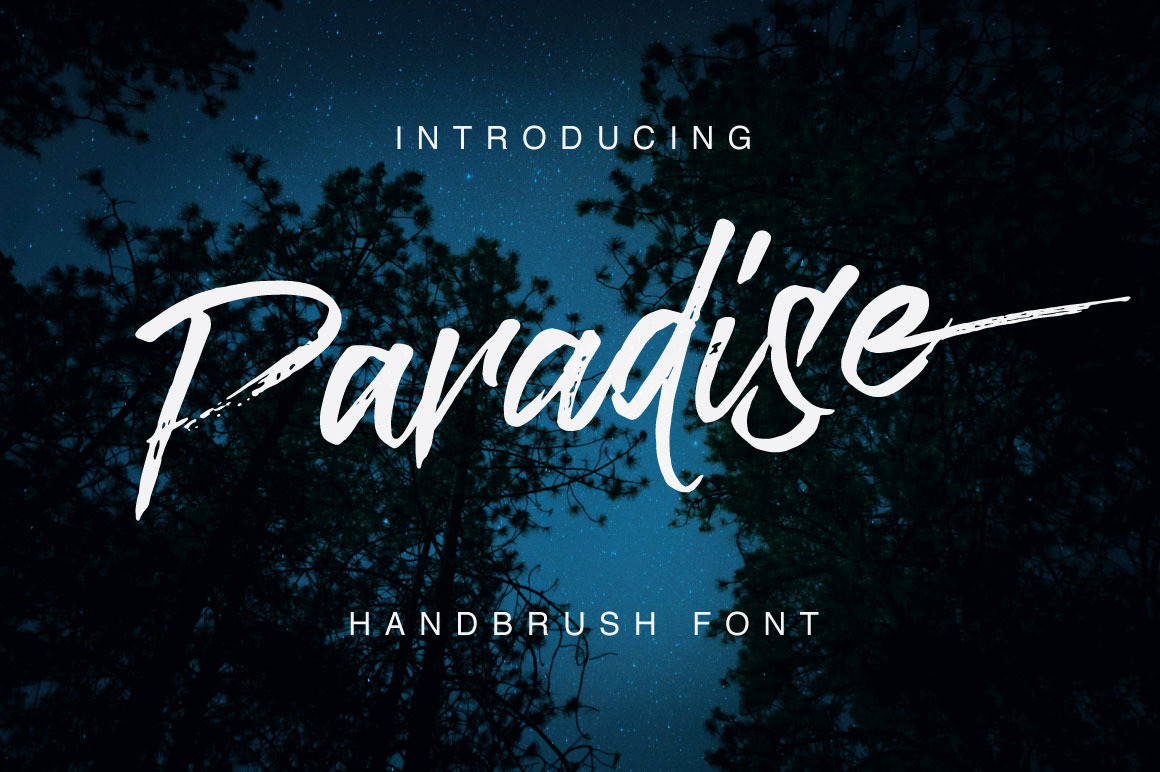
Paradise Typeface
Paradise Typeface is perfect for tropical resort branding, vacation rental materials, beach club signage, luxury travel agencies, exotic destination marketing, tropical product packaging, island-themed restaurants, summer festival posters, cruise line communications, wellness retreat materials, paradise-inspired spas, and dreamy lifestyle brands.
What makes Paradise Typeface exciting is its blissful elegance that captures the serene beauty and luxurious escape of tropical paradise through flowing letterforms that evoke crystal-clear waters and endless summer days. This enchanting typeface embodies the essence of ultimate relaxation and exotic luxury, combining gentle curves with sophisticated grace that resonates with audiences seeking premium vacation experiences and tropical lifestyle aspirations. The font's tranquil character and refined details create immediate sense of escape and desire while maintaining the professionalism essential for luxury hospitality and travel communications. Its paradise-inspired personality makes it perfect for brands that want to communicate luxury, escape, and the transformative power of tropical experiences.
The Paradise Typeface family includes light, regular, and medium weights, each available with corresponding italic styles. The comprehensive family features tropical alternates, flowing ligatures, and paradise-inspired decorative elements that enhance the font's luxurious character and provide designers with extensive tropical luxury typography options for complete vacation brand systems.
Whether you're developing luxury resort identities, creating tropical marketing materials, or designing paradise communications, Paradise Typeface Free Download delivers the exotic elegance your tropical luxury projects demand. This premium typeface excels in applications where escape and luxury positioning are crucial for brand differentiation and audience aspiration in competitive hospitality and travel markets. The font's tropical qualities work magnificently across digital platforms and luxury print applications, making it an invaluable asset for designers serving high-end travel and hospitality industries. Luxury resorts and premium travel brands choose this font for its ability to communicate paradise while maintaining professional credibility and market appeal. The comprehensive character set supports multiple languages, expanding its versatility for international tropical luxury applications and multilingual hospitality communications. Professional designers appreciate its perfect balance of tropical inspiration and commercial sophistication, ensuring projects remain both emotionally aspirational and professionally effective. When you implement this exceptional typeface in your tropical luxury communications, you're selecting a typography solution that celebrates paradise experiences and exotic elegance, ensuring your brand connects with affluent travelers while maintaining the luxurious credibility essential for success in competitive tropical hospitality markets and premium travel industries that promise transformative escape experiences and unforgettable tropical luxury adventures in the world's most beautiful destinations.